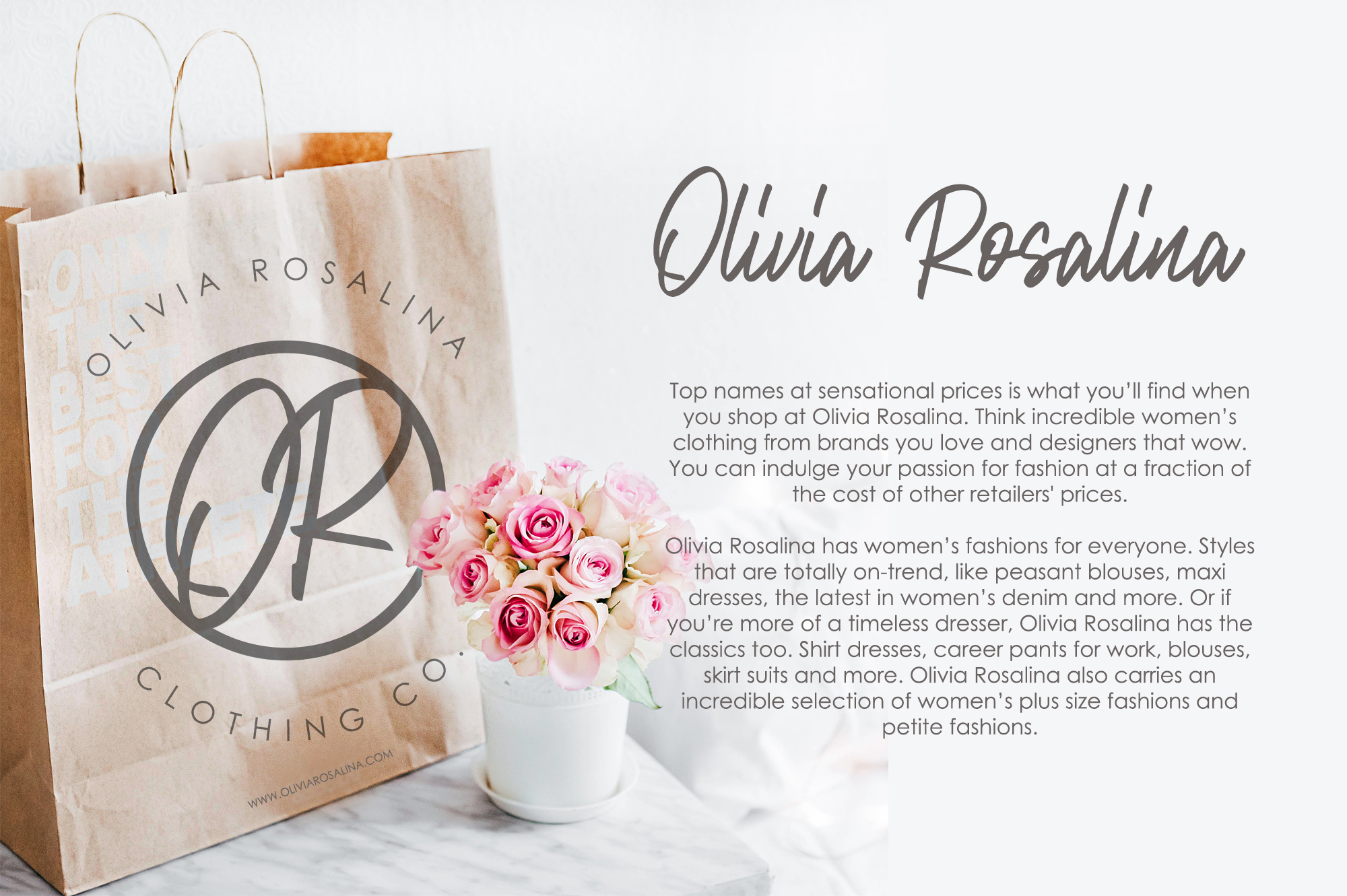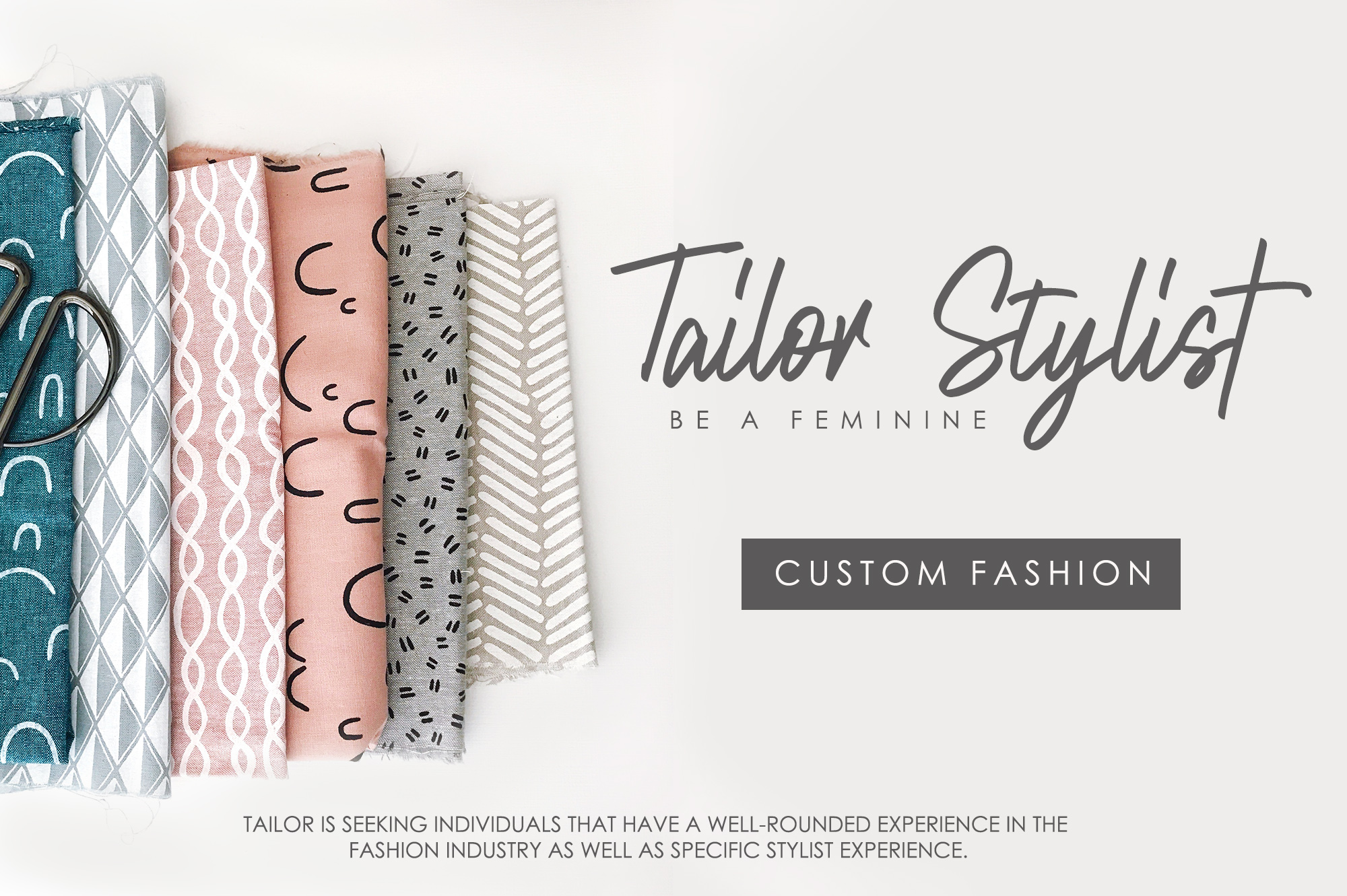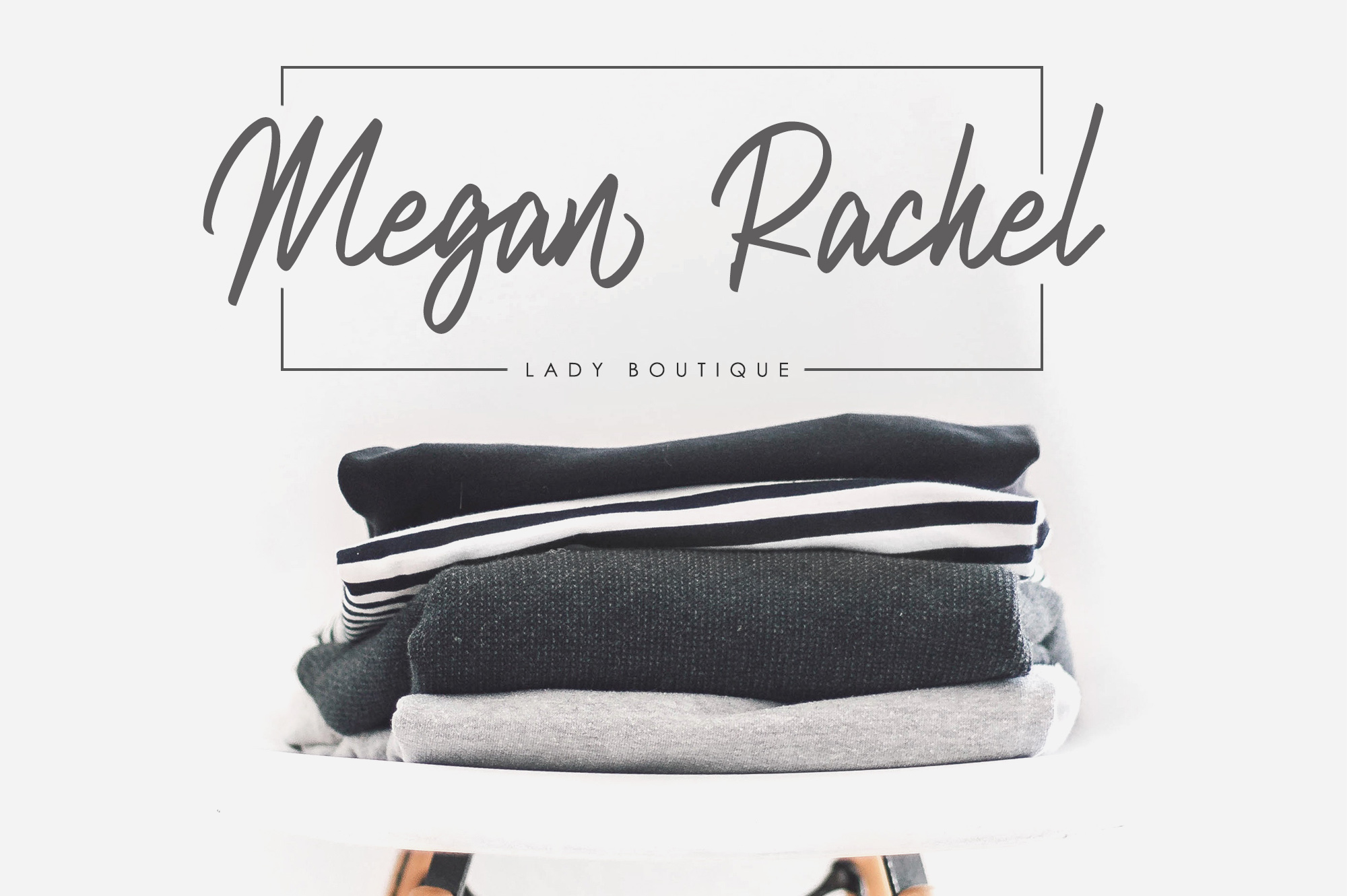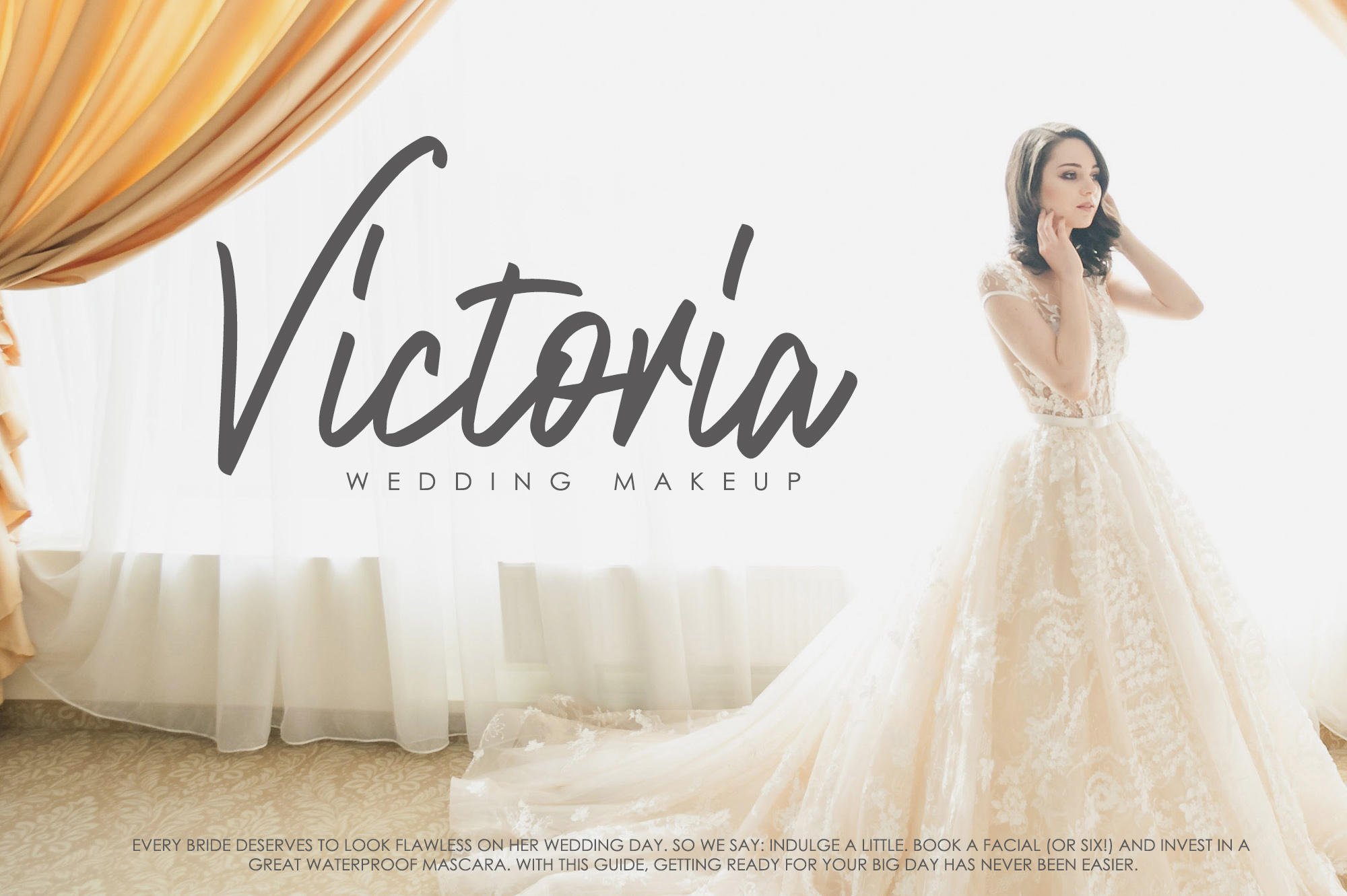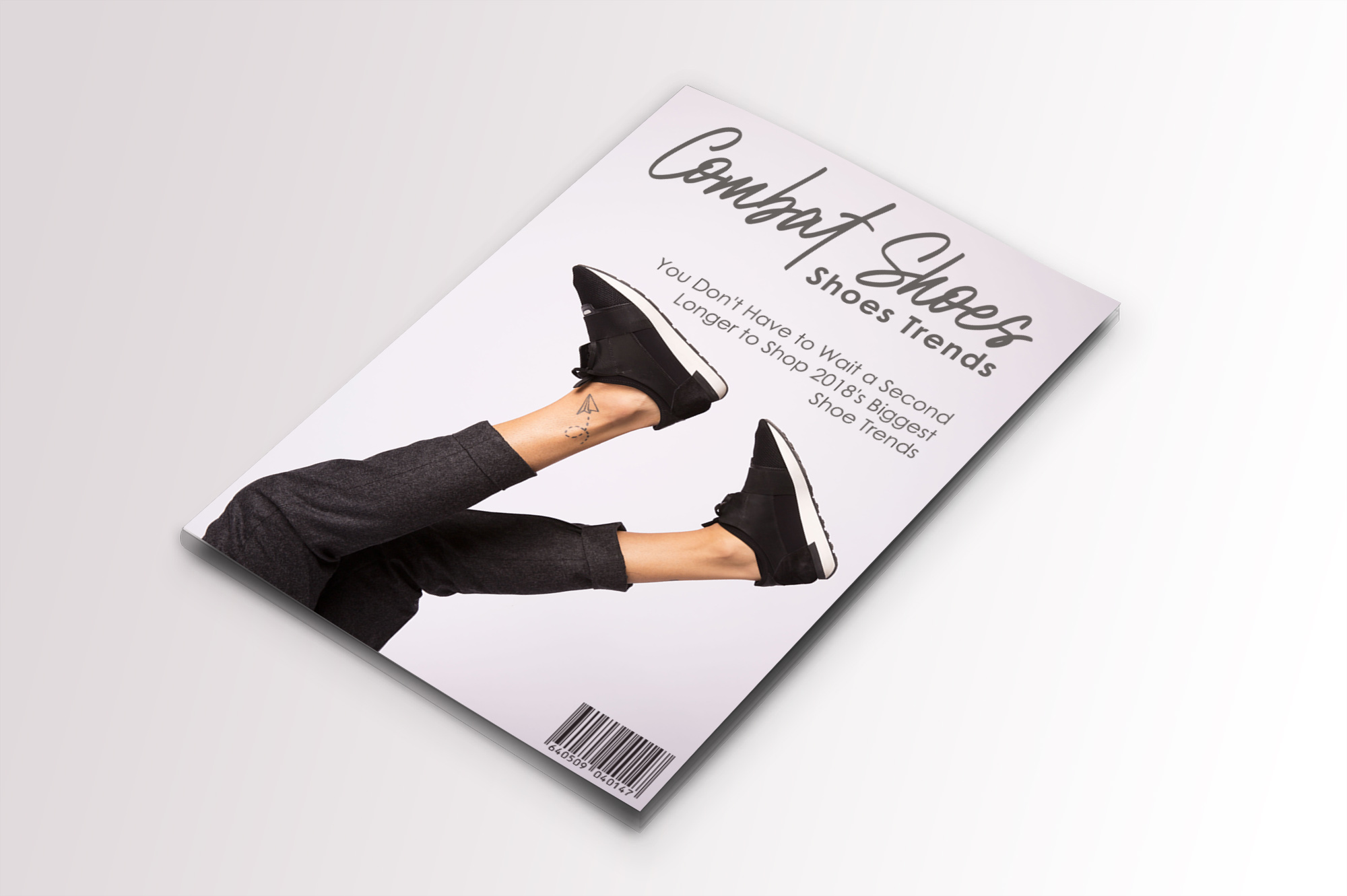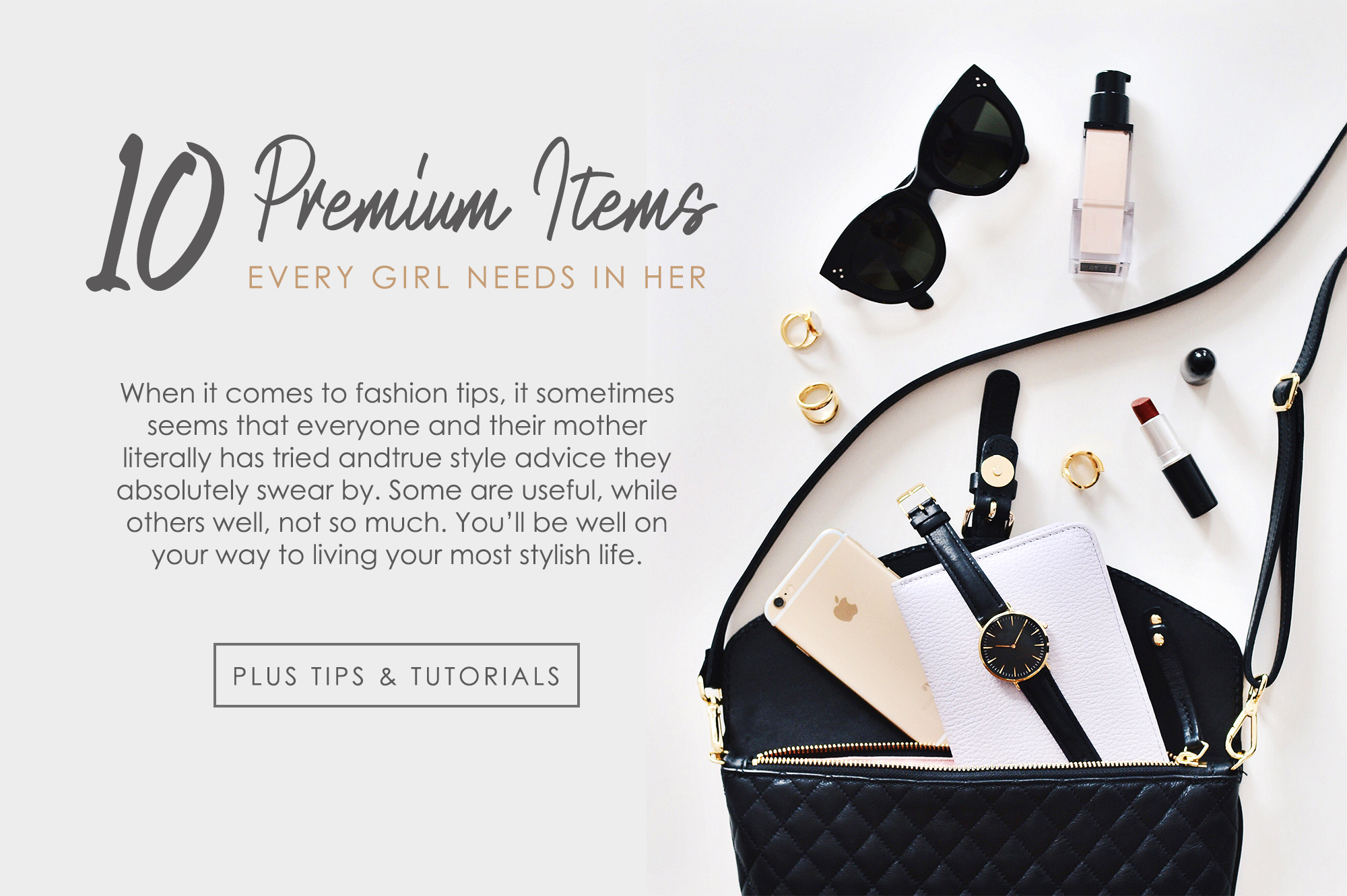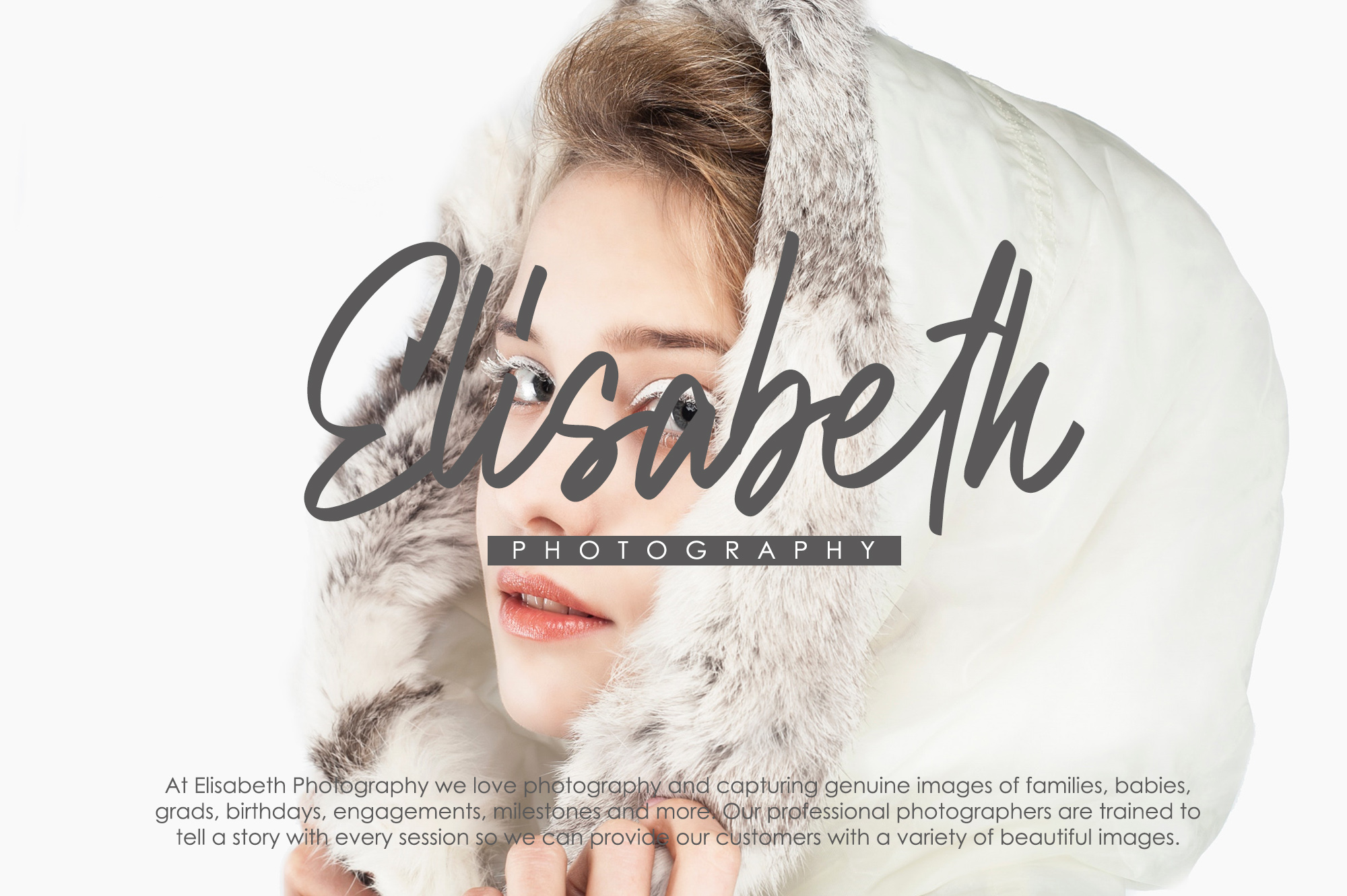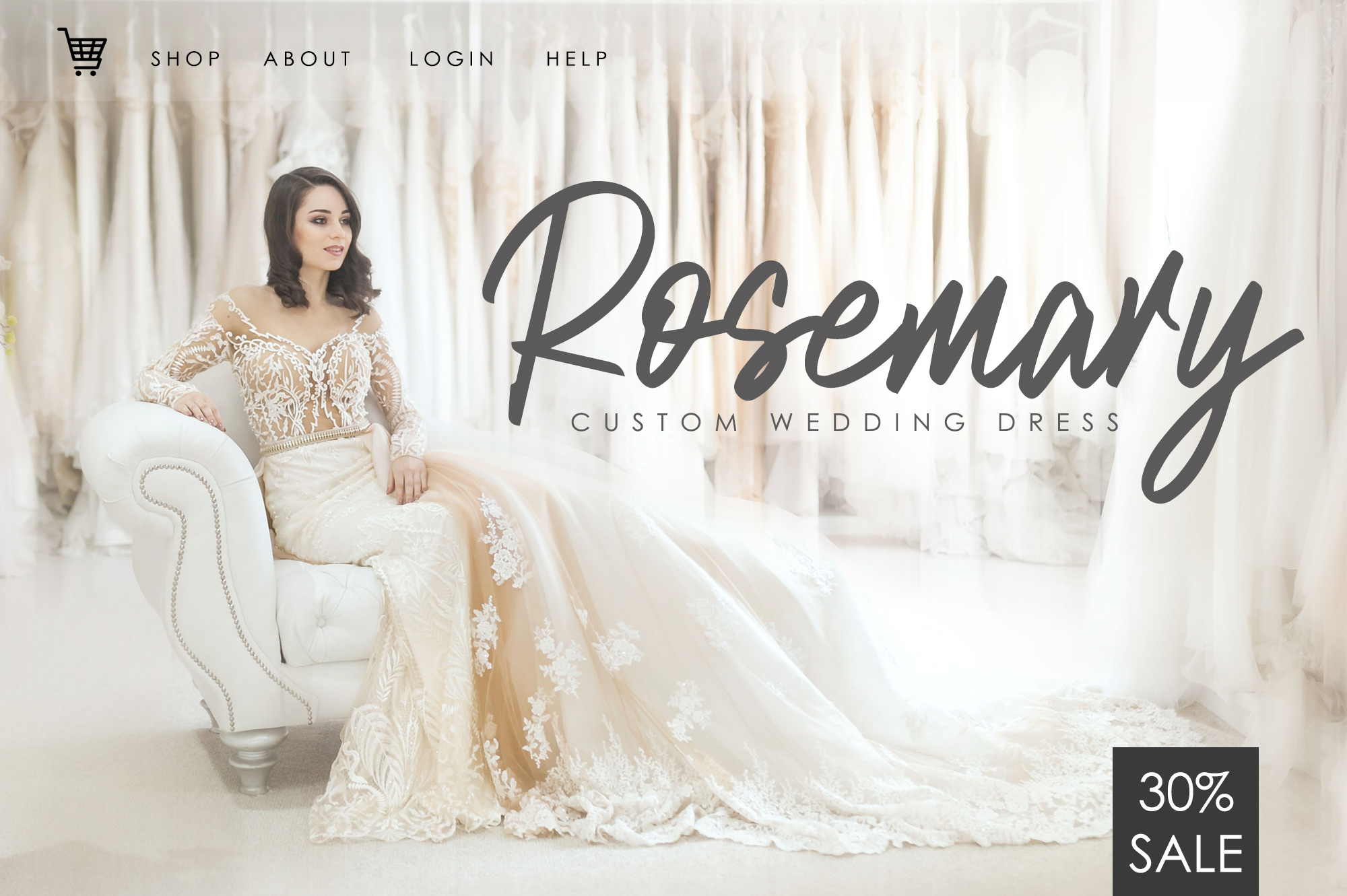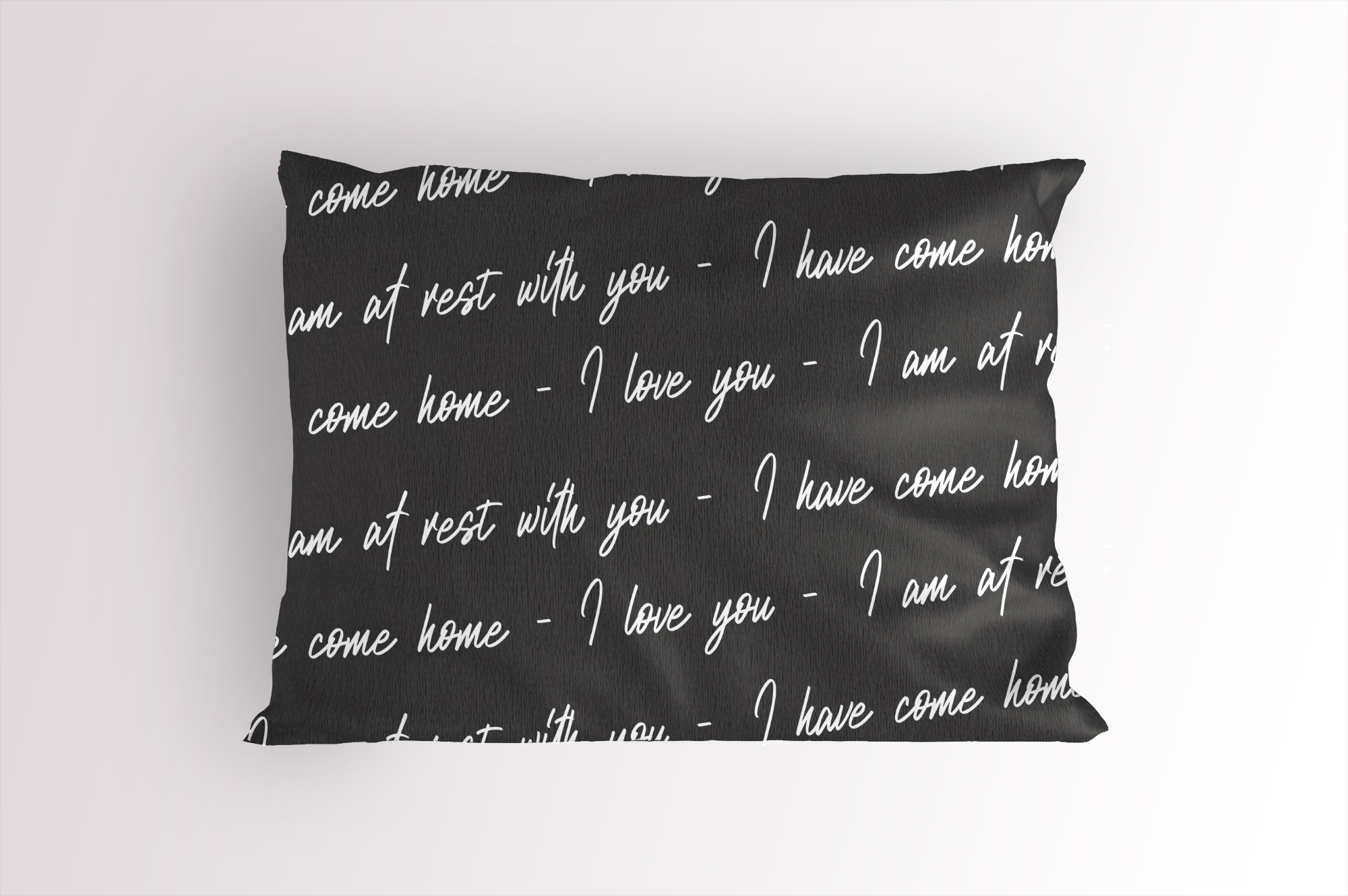
Natalia Roseline Font
About Natalia Roseline Font
Natalia Roseline is a beautiful and fluid font that was crafted with fashion editorial in mind; this ultra feminine script looks amazing when added to fashionable designs, and is versatile enough for a wide range of uses.